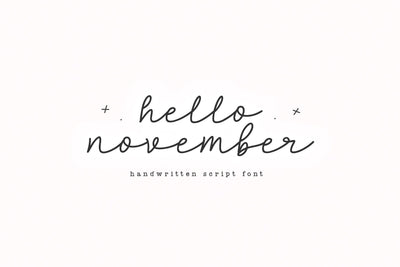
Hello November - Handwritten Script Font
Hello November is a handwritten script font.
This font is perfect for logos, branding, wedding decor, farmhouse designs, cricut projects, svg files, stickers, mugs and more!